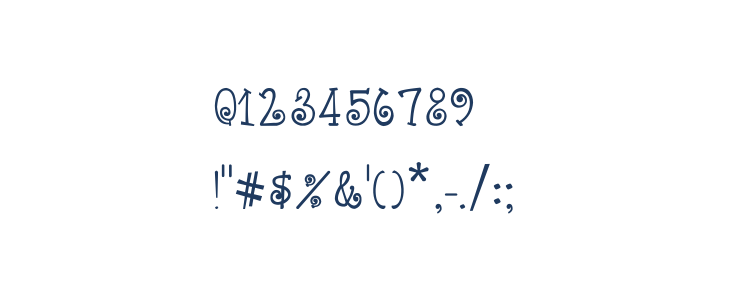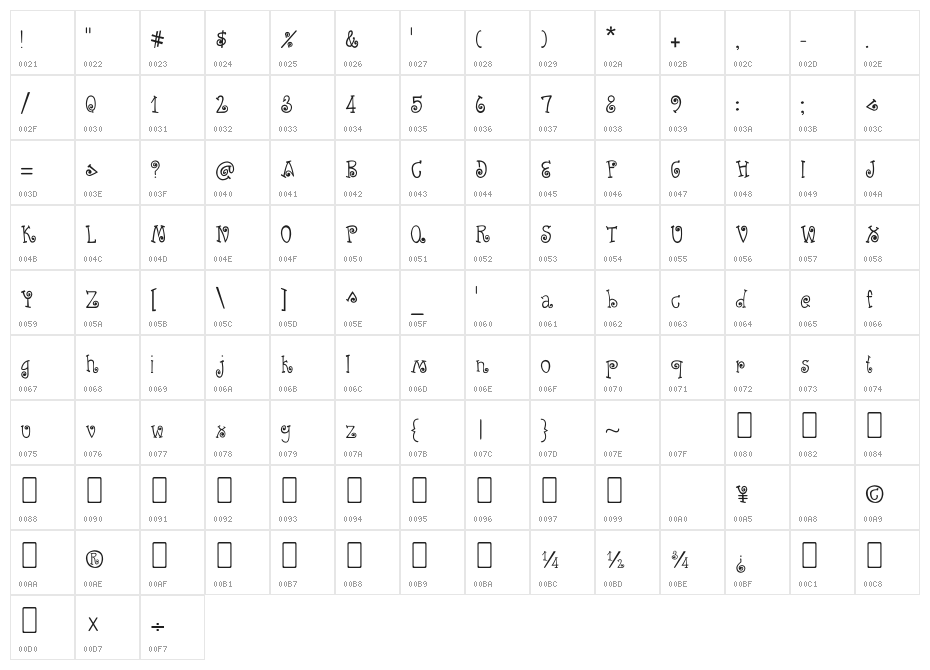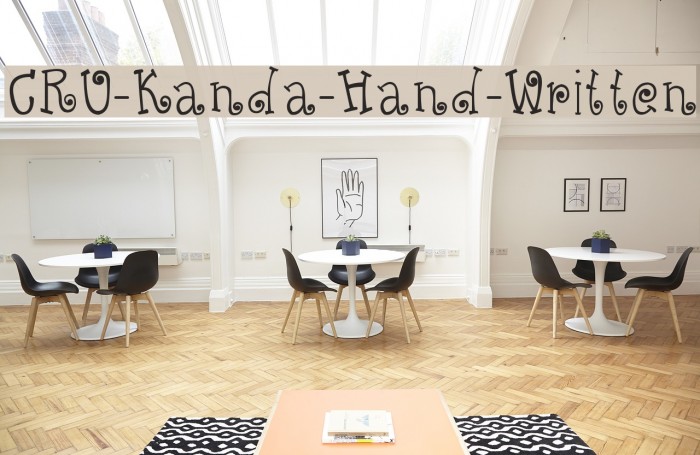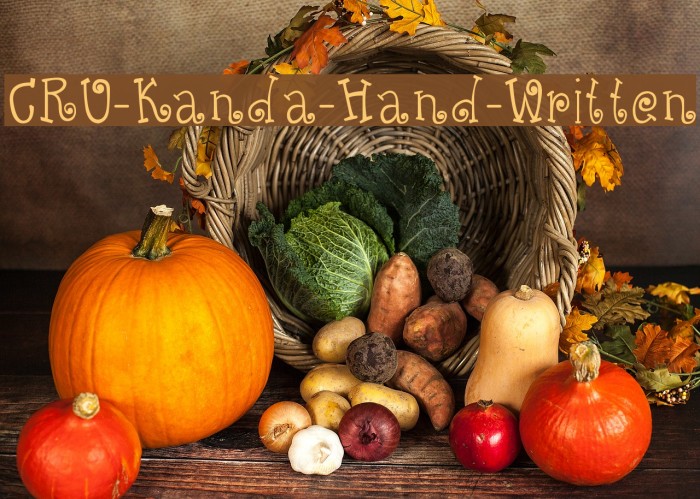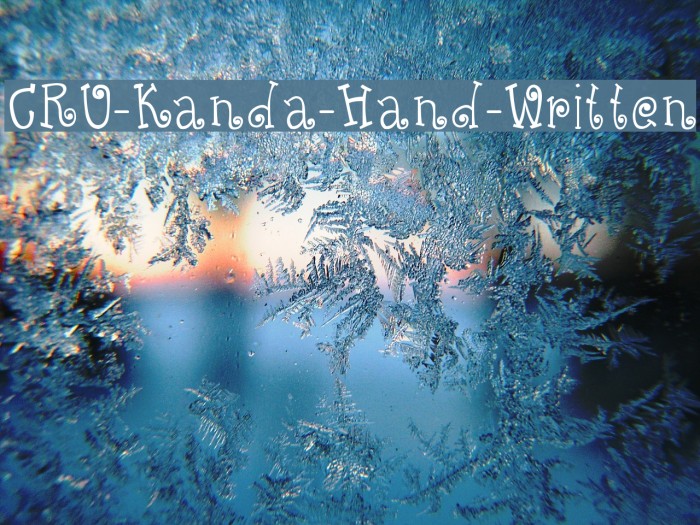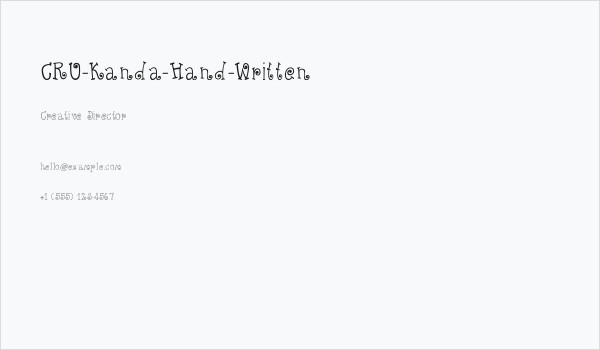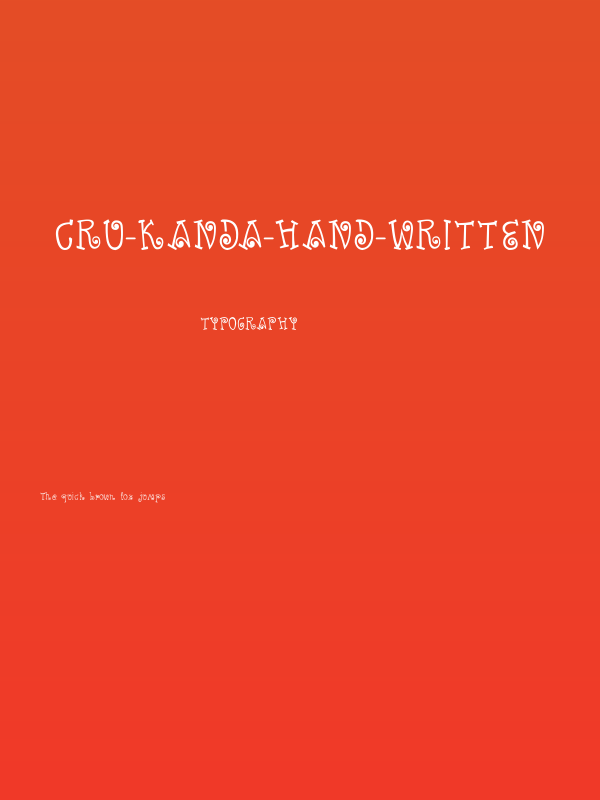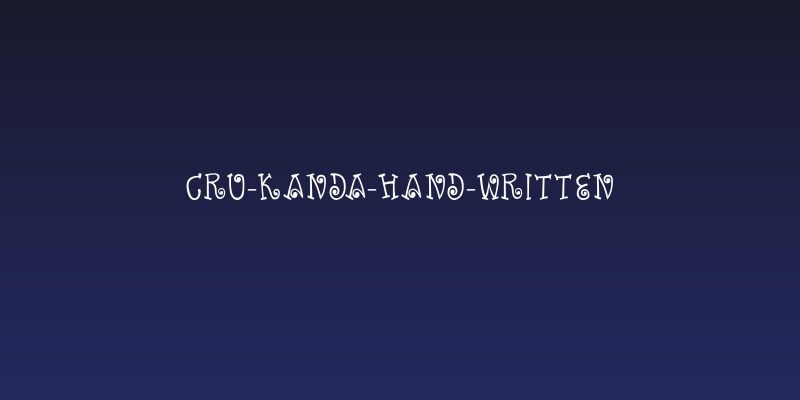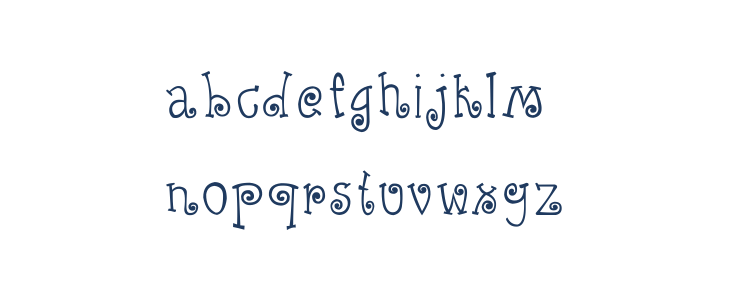
CRU-Kanda-Hand-Written Font
CRU-Kanda-Hand-Written Description
This playful and whimsical font features a unique hand-drawn style with curly and swirly elements. Each character is distinct, with exaggerated curves and loops that give it a lively and energetic appearance. The uppercase letters are bold and prominent, while the lowercase letters maintain a consistent style with a slightly more delicate touch. Numbers and special characters are crafted with the same playful flair, making them stand out. This font is perfect for projects that require a fun and informal look, such as children's books, party invitations, or creative branding.
| Overall Style | Whimsical, Playful |
| Proposed Projects | Ideal for children's books, party invitations, and creative branding. |